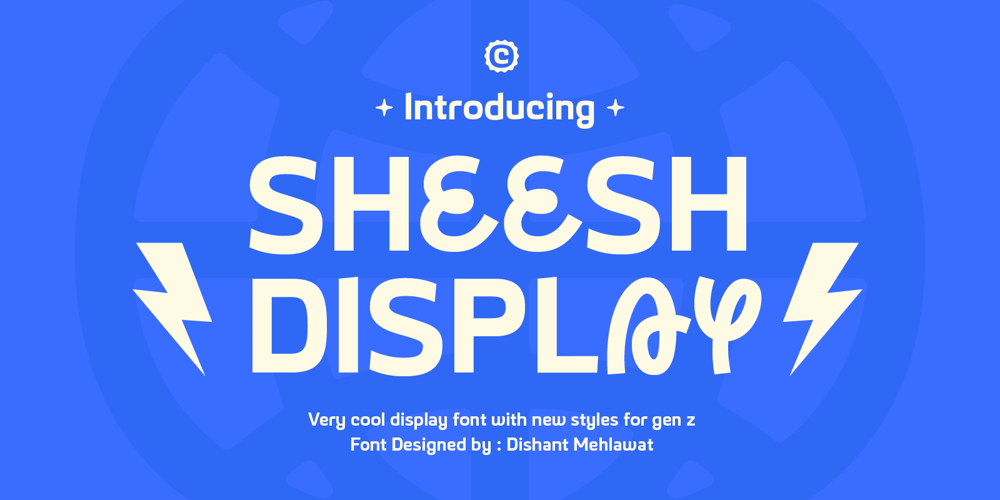
Sheesh Font Family was designed by Dishant Mehlawat and published by Sanyukt Foundry. Sheesh contains 1 styles and family package options. Sheesh is a bold and playful font designed with the current trend of combination fonts for daring nostalgia branding trends in mind. It’s perfect for branding projects aimed at Gen Z, who are known for their bold and fun style. This font features many stylistic sets and funky icons, making it easy to create eye-catching designs that appeal to this demographic. The font has a modern and fresh look that can add a touch of whimsy to any project. Whether you’re creating a logo, a website, or a social media post, Slinky is a font that will help you stand out and make a lasting impression on your target audience.